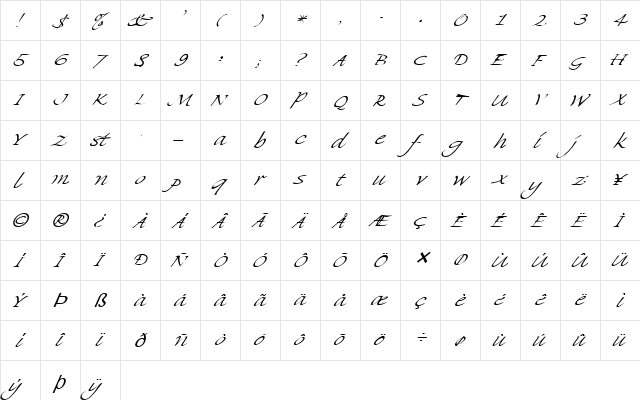
Design Context for FZ HAND 8 ITALIC Typeface
FZ HAND 8 ITALIC flows with the natural rhythm of handwritten lettering, making it ideal for designs that call for warmth and personal expression. Its slender proportions lend an understated elegance to any composition.
Font Pairing: Combine FZ HAND 8 ITALIC with a simple geometric sans for maximum contrast — the tension between flowing curves and clean structure is a classic typographic pairing.
Pro Tip: Pair FZ HAND 8 ITALIC with a clean sans-serif for supporting text. The contrast between fluid script and geometric structure creates an elegant typographic hierarchy.